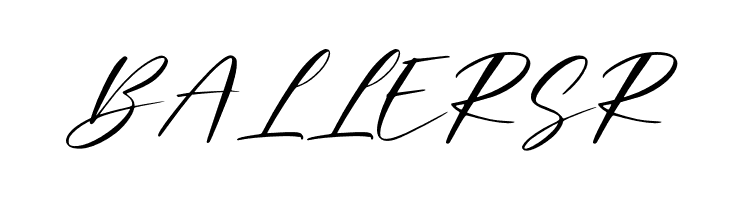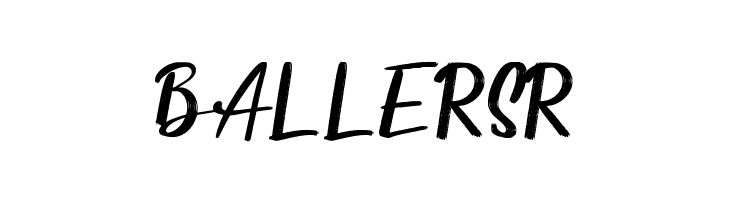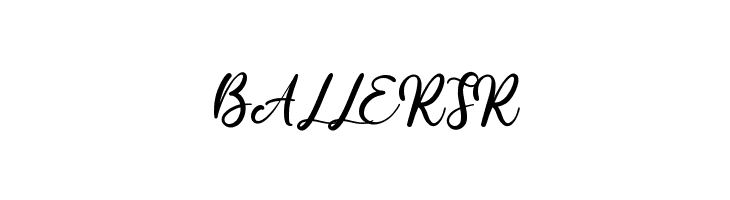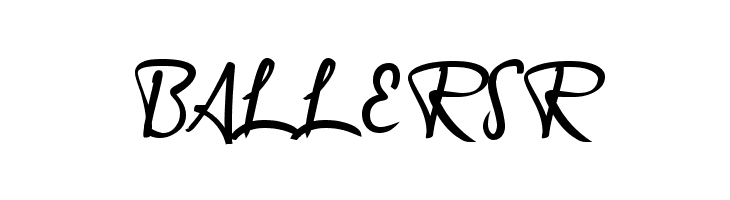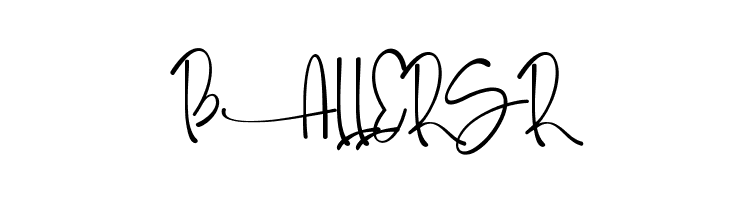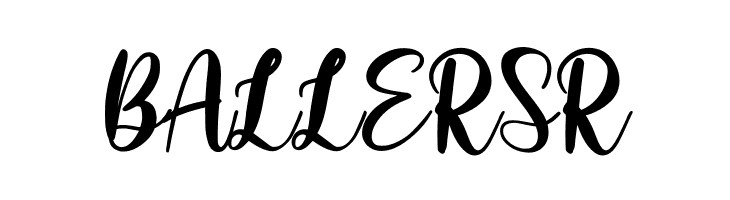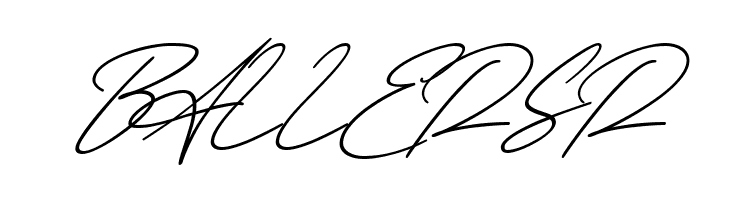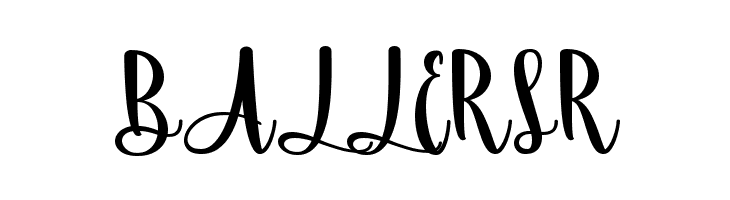
• AmelianaTwo
A playful, casual handwritten font with irregular strokes and an organic flow.
• Amelie
A lively, cursive font with a fluid, handwritten style.
• Amelie Camille
A playful, handwritten font with tall, narrow letters and smooth strokes.
• Amelies Zettelwirtschaft AH
A playful, handwritten-style font with smooth, flowing curves.
• Amelin Secret
A whimsical handwritten font with thin, flowing lines and elegant curves.
• Amelisa
An elegant script font with flowing, interconnected letters and high contrast strokes.
• Ameliya
A playful and elegant script font with a handwritten style.
• Ameliya
An elegant, cursive font with flowing, graceful letterforms and bold numerals.
• Amella
An elegant script font with flowing, cursive letterforms and a classic calligraphic style.
• Amelli
A dynamic and fluid script font with elegant, flowing letterforms.
• amellia
A cursive script font with elegant swashes and artistic flair.
• Amellia Ink
A playful and artistic handwritten font with fluid strokes and dynamic style.
• Amellian Gressida
A flowing, elegant cursive font with a modern handwritten style.
• Amelline
A playful, handwritten script font with fluid strokes and a casual style.
• Amelline Italic